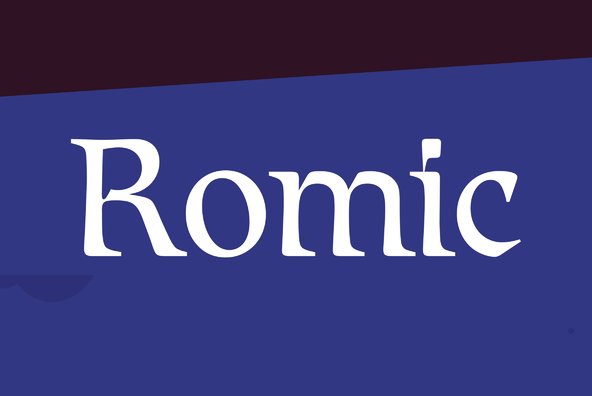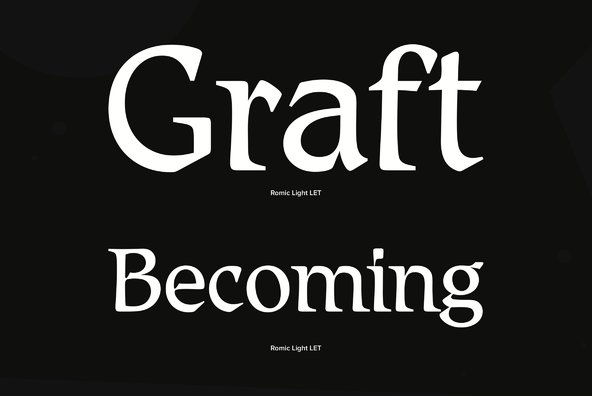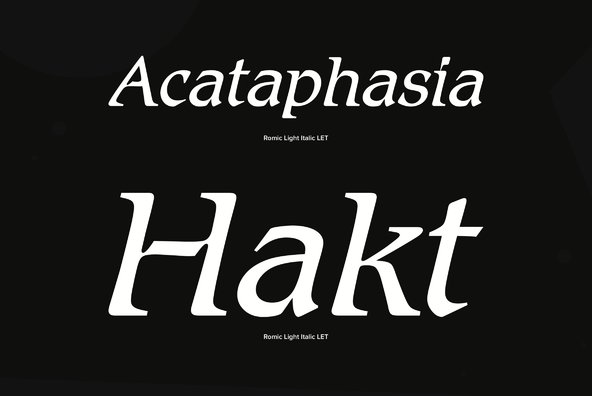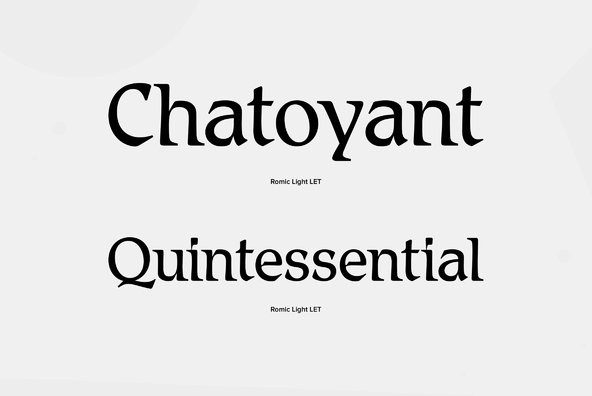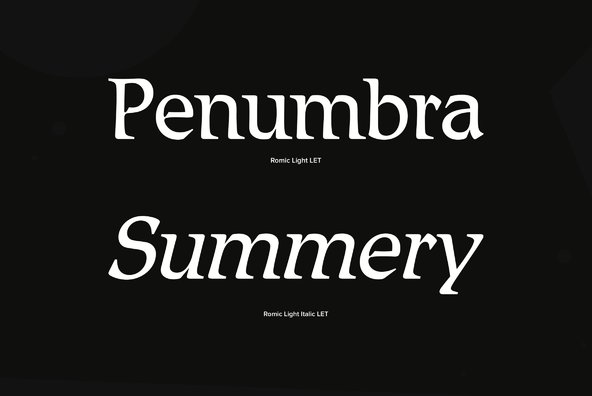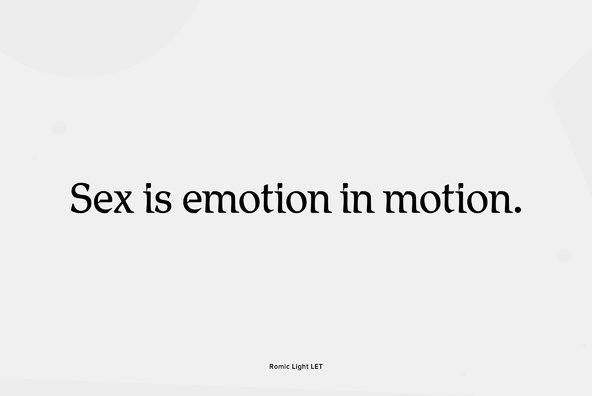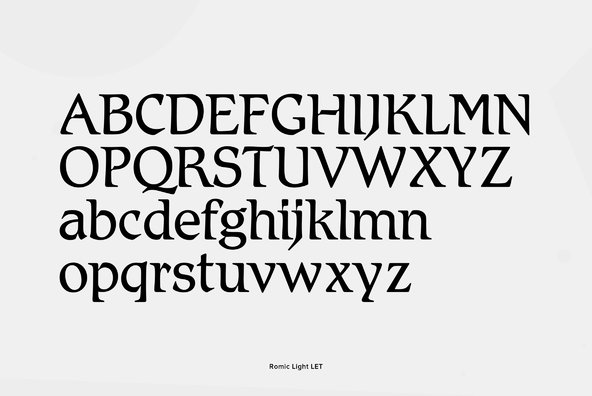
This unique roman typeface was designed by well known Type Director, Colin Brignall. Romic Light has been popular and widely used since its introduction to the range.
This unique roman typeface was designed by well known Type Director, Colin Brignall. Romic Light has been popular and widely used since its introduction to the range. The top-left, bottom-right serif formation is the key to the design and allows the letters to be spaced closely together when desired. An elegant style with a slight calligraphic appearance that makes it effective across a broad range of applications.